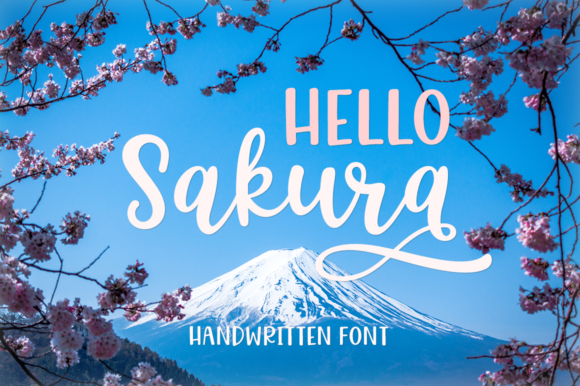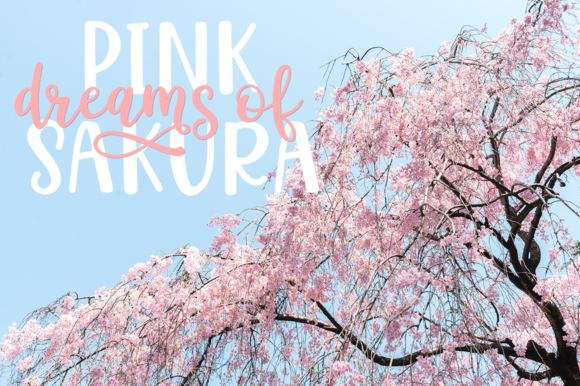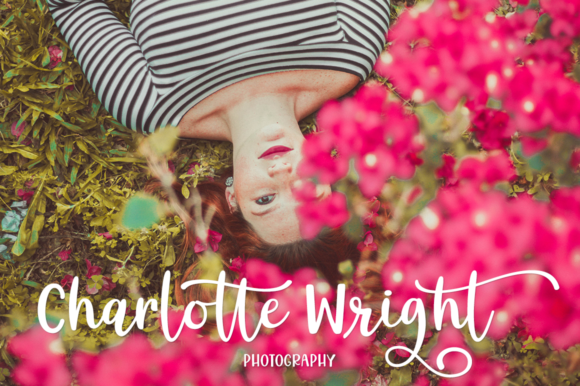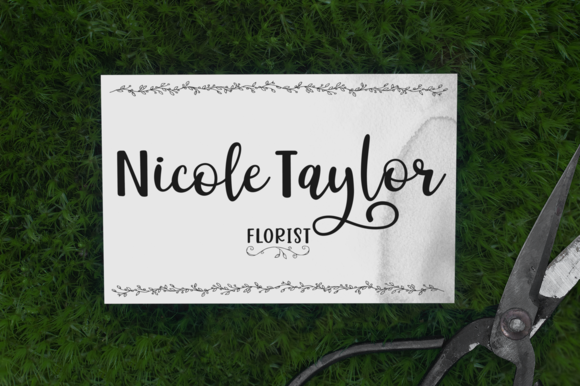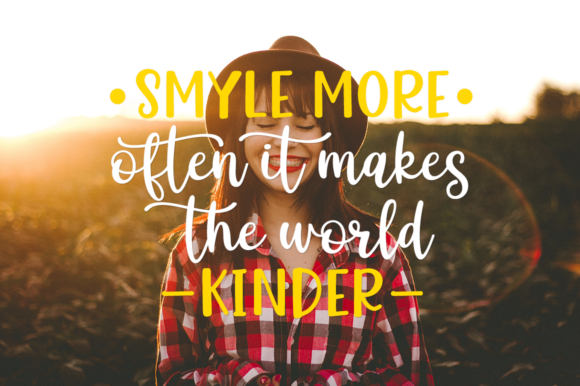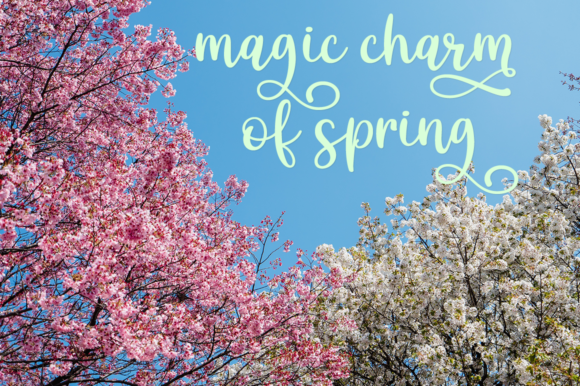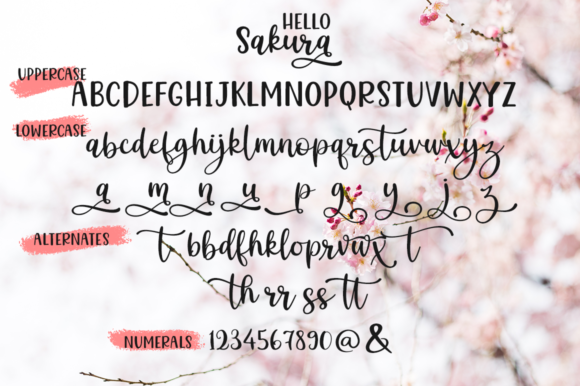
Hello Sakura Font
About Hello Sakura Font
Hello Sakura is a beautiful, elegant and light handwritten font that will easily put an authentic touch on any design project.